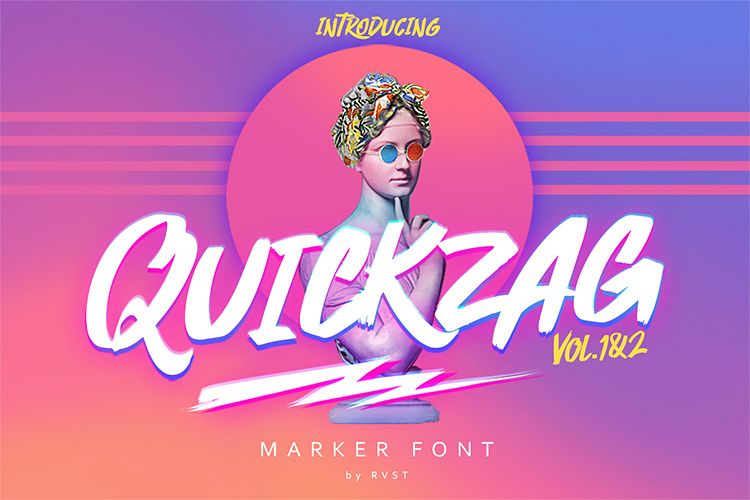
QUICKZAG - Marker font
Quickzag is a hand-drawn marker typeface with an energetic set of marker fonts with fast swipes yet gentle attitude. suitable for energetic, retro, synth-wave, or simple-clean feel that makes your statement, product, poster, merchandise, logo or brand stand out.
• The perfect font choice for powerful projects - watermarks, signatures, photography, logos, business cards, quotes, album covers.
• Multilingual support - spread your message globallyAÀÁÂÃÄÅCÇDÐEÈÉÊËIÌÍÎÏNÑOØÒÓÔÕÖUÙÜÚÛWYÝŸỲŸÆŒßÞþ